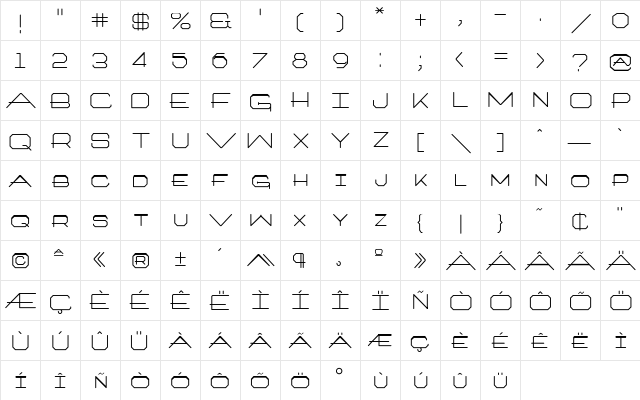
ArchitextOneType Regular
Design Context for ArchitextOneType Typeface
ArchitextOneType offers clean, dependable letterforms without strong stylistic allegiance, making it a practical choice for designers who need flexibility.